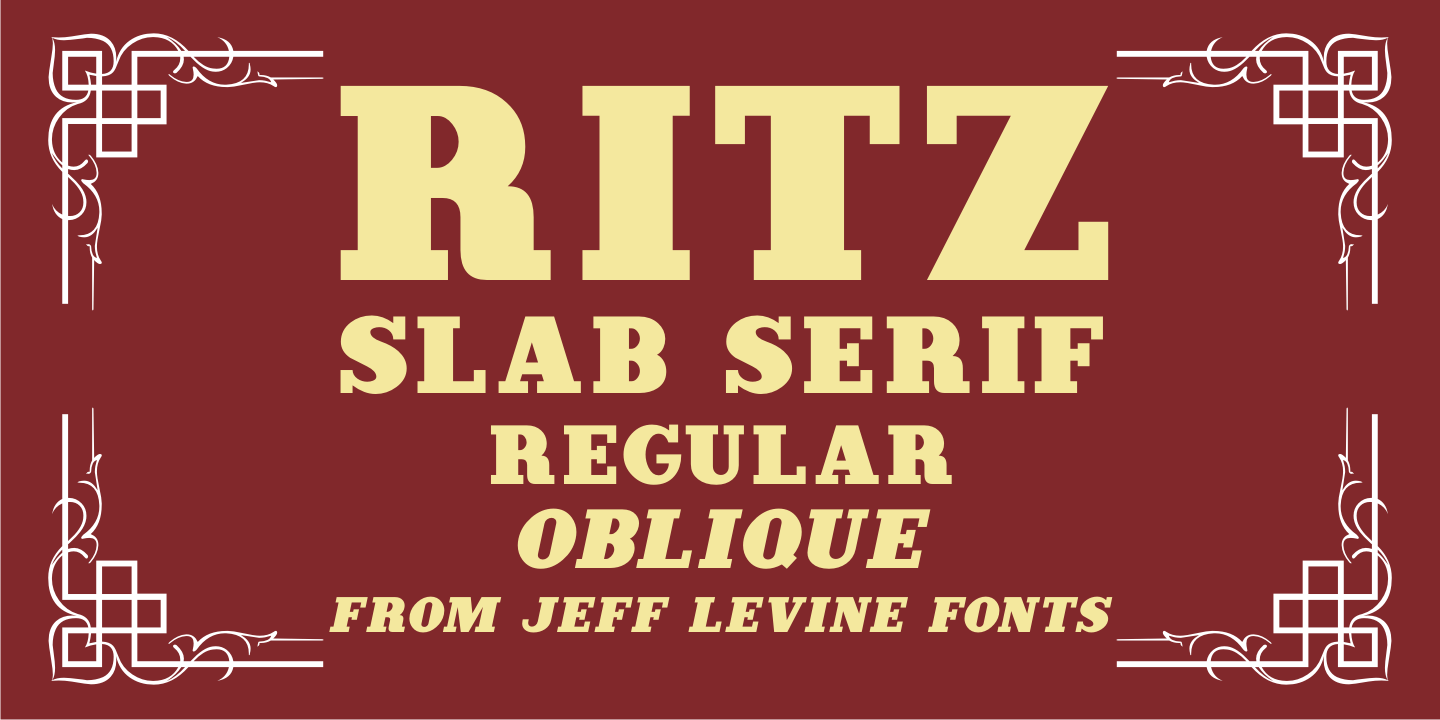
Ritz Slab Serif
Ritz Slab Serif JNL is a bold display face which shares a lot of similar design traits to Stymie and other similar metal type of the 1930s and 1940s, but in actuality was modeled from only four letters.
On the sheet music for the 1937 song 'Sweet Varsity Sue' [from the 20th Century Fox Film 'Life Begins in College'], there is a picture of the Ritz Brothers – a popular comedy team from 1925 through the late 1960s.
The hand lettered name 'Ritz' became the basis for Ritz Slab Serif JNL, which is available in both regular and oblique versions.
Ritz Slab Serif JNL Regular by Jeff Levine Fonts